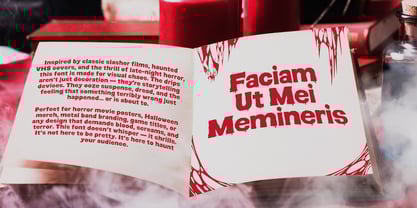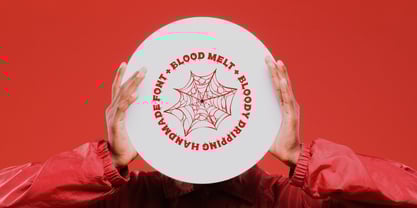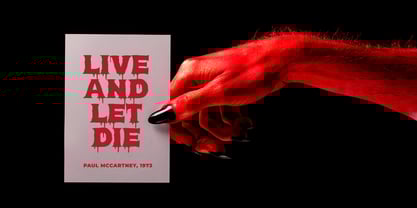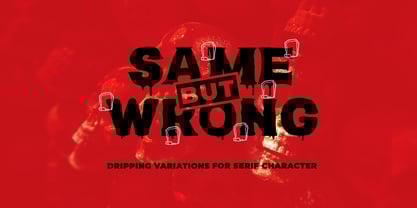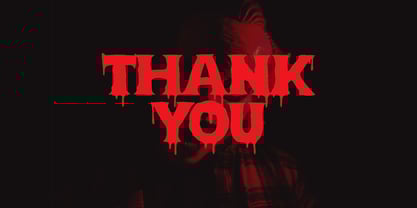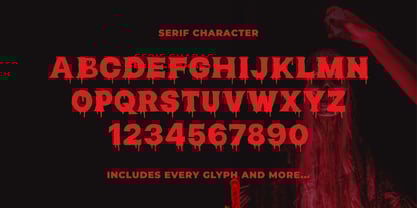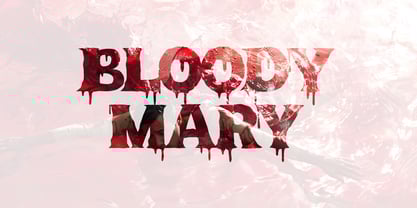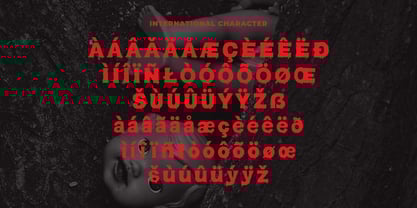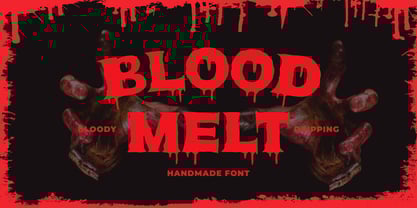
Blood Melt
The Blood Melt Font Family was designed by Asya Fatkhul Illah and published by Steptype. Blood Melt contains 2 styles and family package options.
Blood Melt – A Freaky Font with Dripping Horror Style
Step into the dark side of design with Blood Melt, a bold display typeface that doubles as a freaky font perfect for horror projects, memes, and edgy branding. Its melting, liquid‑like strokes instantly create a creepy atmosphere, making every headline unforgettable.
This freaky text font is inspired by classic horror signage and vintage B‑movie posters, combined with a modern dripping texture that feels alive. Whether you’re designing a Halloween event banner, a game logo, or a viral freaky font meme, Blood Melt delivers maximum impact.
Why Blood Melt Stands Out
• Dripping & Melting Style: each letter seems to bleed and flow, creating a dramatic horror effect.
• Horor Lettertype Vibe: bold, uneven shapes add tension and excitement to your message.
• Versatile for Designers: perfect as a freaky text font for posters, stream graphics, apparel, or packaging.
Best Use Cases
• Halloween flyers, escape room branding, haunted house signage
• Horror game titles, YouTube thumbnails, streamer overlays
• Band merchandise, edgy T‑shirt graphics, or snack brands with a spooky twist
• Viral graphics and freaky font meme creations
Bold display design for maximum visibility
Organic, dripping texture to evoke fear and intrigue
Multilingual support with uppercase, lowercase, numerals & punctuation